Talking about high fashion branding, elegance doesn’t come only from the clothing itself but also from its packaging, promotional media, and type of typography used. In terms of typography, it functions not only as a text element but also as part of a visual identity. The typography used reinforces a premium image and differentiates a brand in the competitive fashion industry. Serif fonts, with their bold and elegant details, can instantly convey an impression of exclusivity and class.
Designers should carefully select high-end fashion fonts because each word should carry a unique visual and psychological nuance. A proper serif font can deliver a sense of luxury and confidence, as well as traditional value associated with high-end fashion brands. The character and uniqueness of each font play a crucial role in creating a visual appearance that balances aesthetics and readability.
With understanding each serif font character, designers and brand owners can build stronger, more attractive visual communication. When the typography aligns with the brand identity, it strengthens visual storytelling and enhances the professional impression. This article will discuss how to select high-end fashion fonts that effectively support your branding strategy in a targeted manner.
Konfista presents an elegant serif character with smooth lines and well-defined contrasts, exuding a luxurious, contemporary impression. The letter structure is well-arranged, with a precise serif accent, creating a stable visual flow that is comfortable to read at various sizes. Therefore, those characteristics result in an elegant, well-structured design composition. As one of the high-end fashion fonts for branding, Konfista reinforces an exclusive, professional image. It is worth considering as a serif font that can help build a sophisticated, classy brand identity.
High fashion always starts with visual detail, making font selection the primary foundation that exudes a brand’s prestige. Clean line contrast and balanced line proportions create a timeless yet modern visual, which is important in the high-end fashion font category. Moreover, Quitos has a firm yet smooth serif shape, which allows the letter structure to convey a confident impression without appearing stiff. As a result, those characteristics make the text look refined and easy to read. It strengthens the exclusive visual identity for high-class fashion branding communication.
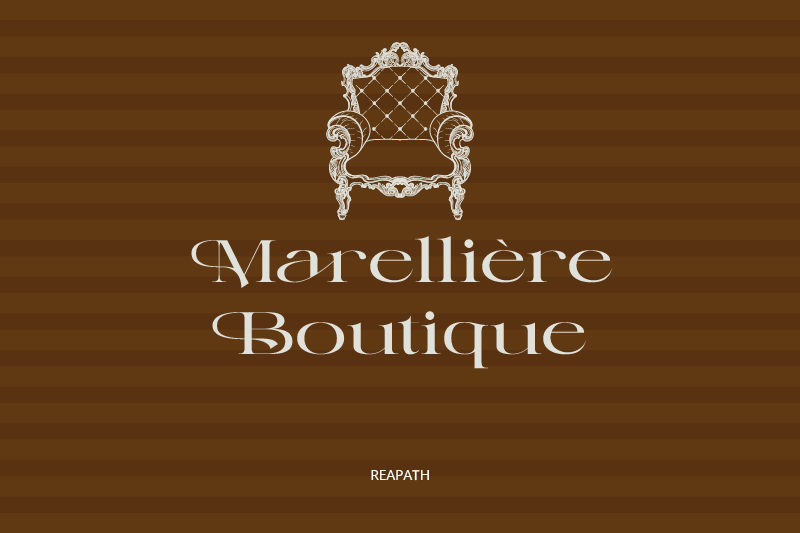
As one of the high-end fashion fonts, Repath affirms typography’s role in shaping a brand exclusive image. It combines the smooth line contrast with the artistic letter curve, creating a refined and classy visual. Those unique traits result in a luxurious visual rhythm, making each word appear like a precisely crafted design element. In the context of high-end fashion branding, Repath can strengthen its exclusive identity while conveying the timeless feel synonymous with luxury fashion.
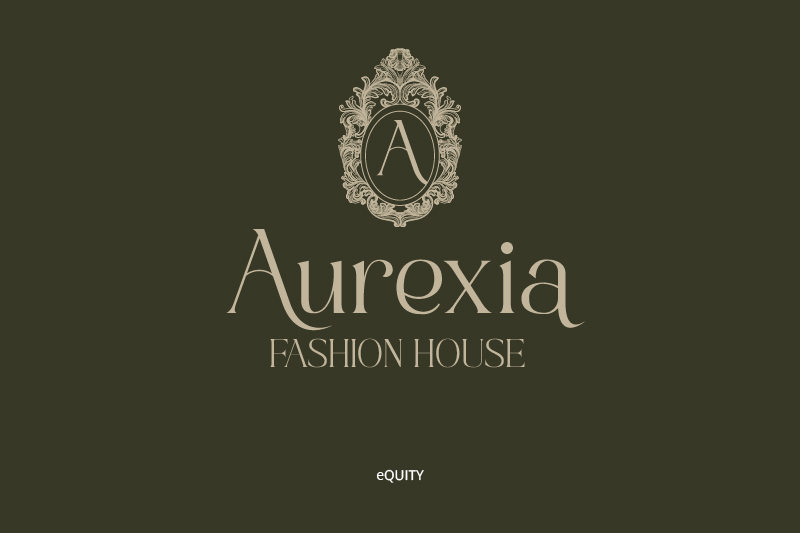
eQuity emphasizes the importance of selecting a serif font to build an exclusive brand identity. This is set to become an integral part of premium fashion. As one of the list of high-end fashion fonts, it provides an elegant serif character through the smooth line contrast and the balanced letter proportion. Thus, the combination of the characteristics results in a luxurious and modern impression. Moreover, the neat serif detail creates a refined visual rhythm without reducing the readability. This distinction makes each composition look precise and classy. In the context of high-end fashion branding, eQuity can strengthen premium identity and present a consistent, timeless impression.
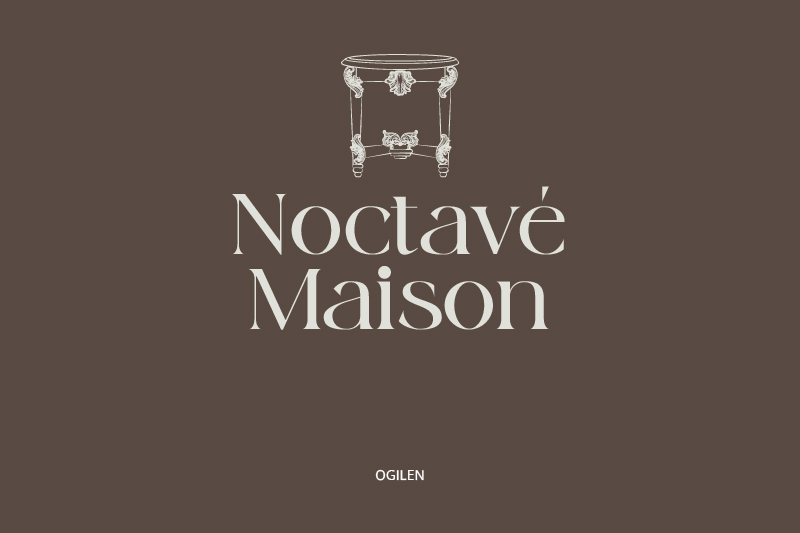
In terms of premium fashion branding, typography works as a bridge connecting brand identity with audience perception. Ogilen presents a neat and balanced serif structure, making the brand’s visual look professional and curated, something that is important in the category of high-end fashion fonts. When it is applied in logos or promotional materials, the letterform helps create a consistent and classy look. As a result, this visual approach makes the brand look confident while strengthening the desired premium image.
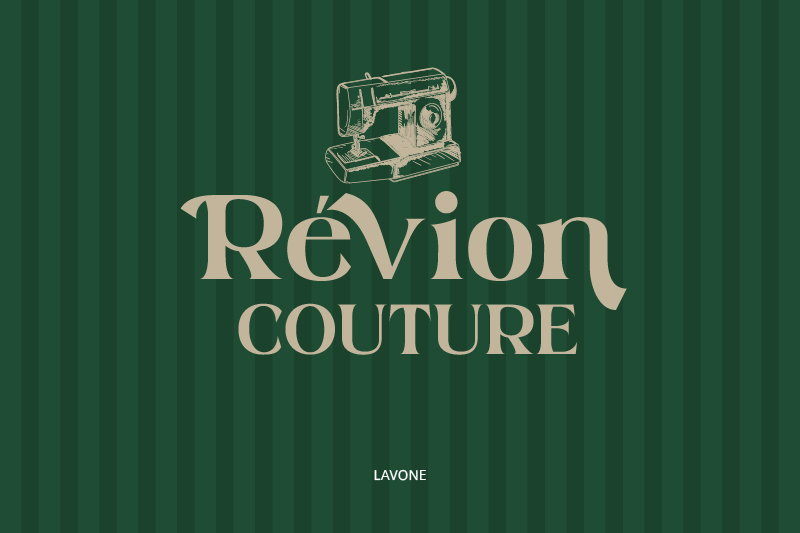
Link of font demo: Click Here
In the list of high-end fashion fonts, Lavone stands out through the expressive serif detail. This font features firm line contrast, creating a strong visual focal point for each letter. The sharp yet smooth serif tips create an elegant impression without appearing stiff. The slightly elongated letter proportions create a graceful typographic silhouette while allowing ample breathing space for the text. Overall, Lavone blends visual boldness with elegance, making it worthy of being positioned as one of the most exclusive, high-end fashion fonts.
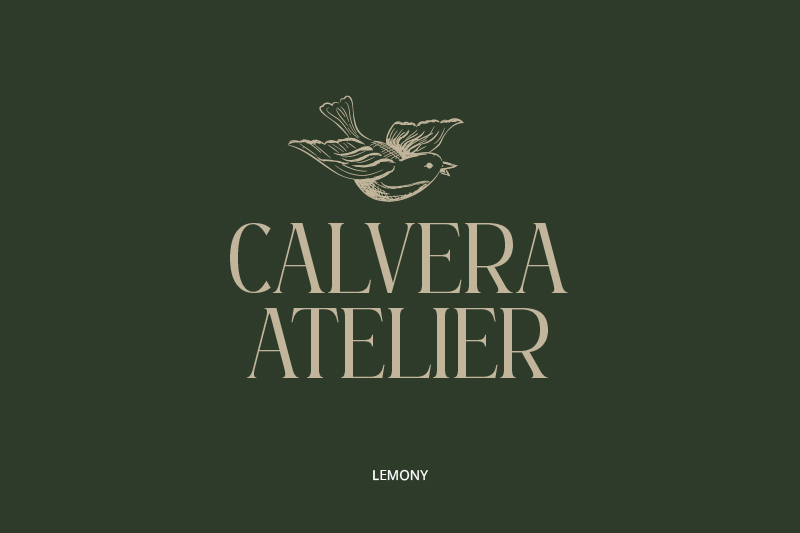
Link of font demo: Click Here
Lemony demonstrates how soft serifs can still exude a luxurious visual, a characteristic that is relevant to being used as one of the best high-end fashion fonts. This font has a moderate line contrast, making a clear difference between thin and thick without an extreme feel. The short yet smooth serif shapes create an elegant accent without compromising readability. Moreover, the curve with a smooth line transition gives a neat and modern visual flow. Therefore, this character makes Lemony ideal for high-end fashion branding that demands a sophisticated look.
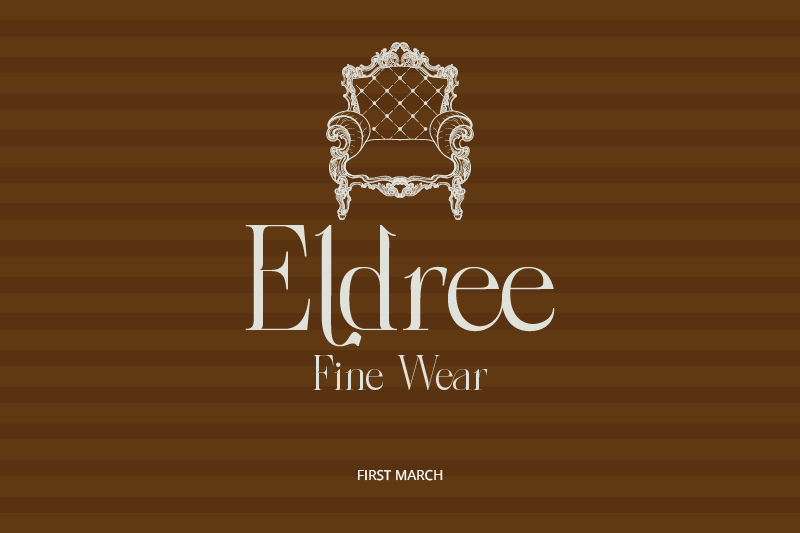
Link of font demo: Click Here
First March shows a classic serif character with a firm yet smooth line contrast, creating an elegant feel. The combination of balanced letter proportion and neat serif shape results in a clean yet elegant look. Moreover, the letter curve detail adds an artistic touch that enriches the visual rhythm, making each text composition look curated and professional. This uniqueness allows First March to build a high-end fashion visual identity. Therefore, in the context of high-end branding, this quality makes First March the right choice from one of the high-end fashion fonts.
Michaila Shefira emphasizes an elegant serif character through a firm yet soft line contrast, resulting in a precise and slender letter silhouette. The sharp serif detail, combined with thick letterforms, makes this font elegant and stand out. Furthermore, the balanced letter proportion looks neat and organized. Thus, this font creates an exclusive and contemporary feel, making it the right choice from the high-end fashion fonts list that conveys luxury, consistency, and timeless appeal.
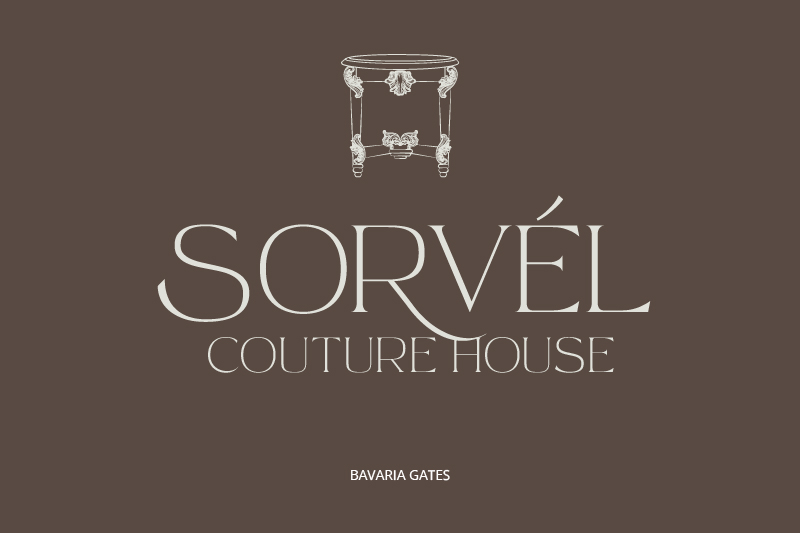
Link of font demo: Click Here
Bavaria Gates typography opens the visual composition with a clean, elegant, and contemporary aura. The smooth yet well-defined line contrasts create a tall, clean, and wise letter silhouette. Moreover, the precise tip of the serif adds a firm visual accent without looking fierce. Meanwhile, the gently flowing curves of the letters maintain a steady rhythm. These visual qualities make Bavaria Gates one of the high-end fashion fonts that delivers an exclusive look demanded by today’s fashion branding.
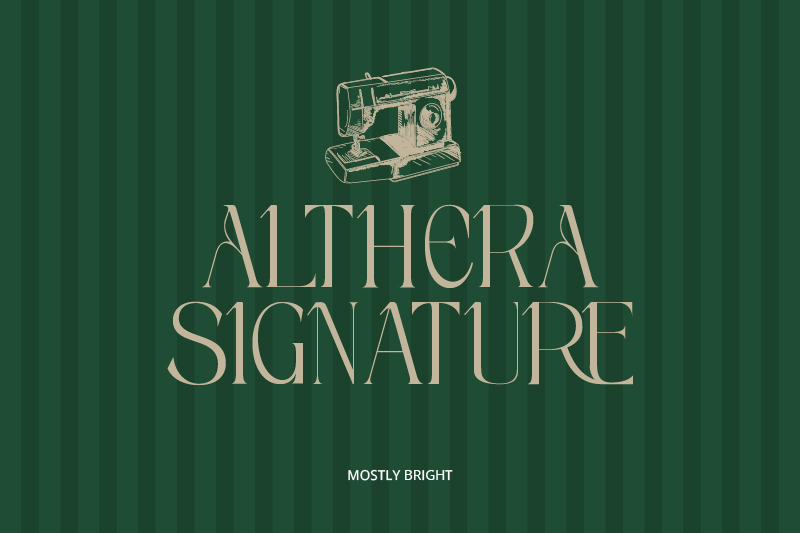
Link of font demo: Click Here
Mostly Bright presents an expressive serif character with various letter decorations, making each letter exude confidence without appearing overdone. The detailed shapes emphasize the clarity of classic, structured lines, resulting in a clean, organized typographic appearance. The resulting visual rhythm gives a strong editorial feel, as if each word is planned to appeal. Therefore, this quality contributes to an elegant and classy image, positioning Mostly Bright as one of the best high-end fashion fonts. This approach effectively strengthens fashion branding identity by creating a firm yet characterful visual appeal.
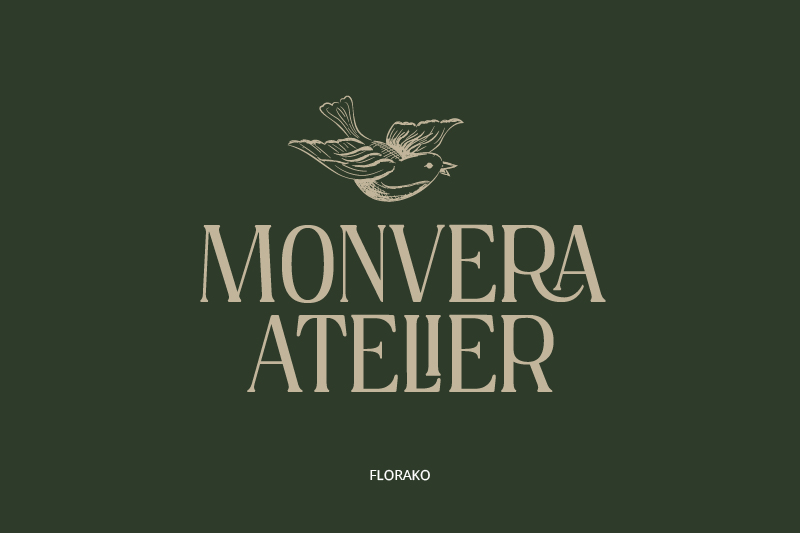
Link of font demo: Click Here
Florako features a bold yet refined serif character through measured line contrasts, ensuring each letter stands out clearly without appearing overdone. The slender, tall silhouettes create a graceful and sophisticated look. Precise serif details provide a clean and controlled visual accent, while gentle curves maintain a steady reading flow. The combination of classic nuances and contemporary touches makes Florako, a part of high-end fashion fonts, ideal for reinforcing the exclusive image of premium fashion branding.
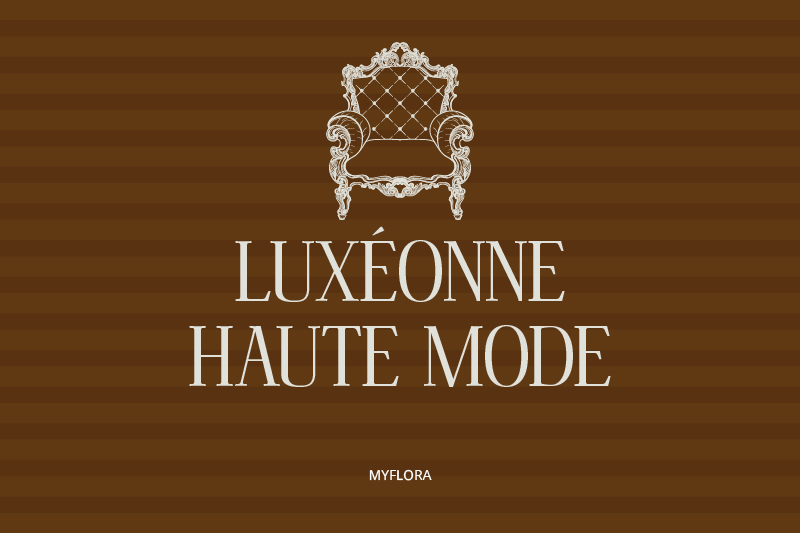
Link of font demo: Click Here
As one of the main typographies, Myflora creates a clean and classy visual impression. Each letterform balances firmness and subtle detail, creating an aesthetic sense of visual depth. The nuances tend to be classic, without appearing outdated, as the form remains relevant to contemporary aesthetics. This character builds a purposeful, exclusive image. Therefore, it reinforces its position as a serif suitable for use in high-end fashion branding.
Link of font demo: Click Here
This time, Rasfire presents an artistic touch that immediately catches the eye. The letterforms combine bold lines and artistic curves, creating a graceful appearance with a strong character. The terminal details and graceful curves lend a controlled, decorative feel and reinforce the text’s overall elegance. This uniqueness makes Rasfire the perfect choice for high-end fashion fonts, as it can build an exclusive image and strong identity in any visual application.
Link of font demo: Click Here
Castre concludes with this strong selection of the best serif fonts for high-fashion branding. Its line structure displays subtle clarity, while the precise curves and serif details create a sense of elegance and class. Each letterform is neatly arranged, creating a clean, authoritative composition, perfect for logos and promotional headlines in fashion branding.
Those characters emphasize an exclusive and highly valued visual identity. With its mature aesthetic qualities, Castre is worthy of use as a high-end fashion font, representing luxury and elegance in a unified visual.
Overall, choosing the right serif font determines the strength of your visual identity in building an elegant, exclusive, and classy premium fashion image. Determine the font that best suits your brand’s character and apply it consistently to build a strong, high-end fashion image that will leave a lasting impression on your audience.